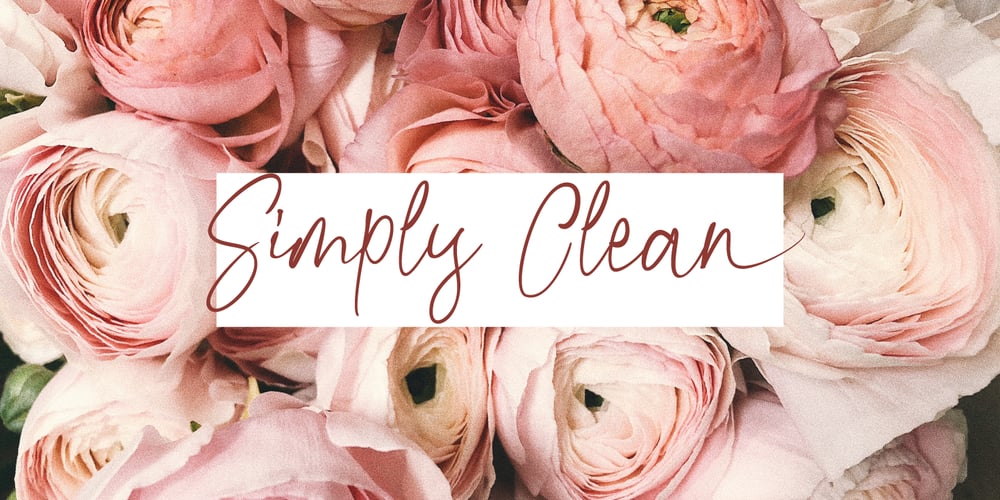
Kiysoom Signature
Kiysoom Signature font
Kiysoom Signature Font Family was designed by Ferdiansyah and published by Pointlab. Kiysoom Signature contains 1 styles and family package options. Kiysoom Signature is a new fresh & modern script with a handmade calligraphy style, decorative characters and a dancing baseline! So beautiful on invitation like greeting cards, branding materials, business cards, quotes, posters, and more!! Kiysoom Signature come with 250 glyphs+. The alternative characters were divided into several Open Type features such as Swash, Stylistic Sets, Stylistic Alternates, and Ligature. The Open Type features can be accessed by using Open Type savvy programs such as Adobe Illustrator, Adobe InDesign, Adobe Photoshop Corel Draw X version, And Microsoft Word. And this Font has given PUA unicode (specially coded fonts). so that all the alternate characters can easily be accessed in full by a craftsman or designer.